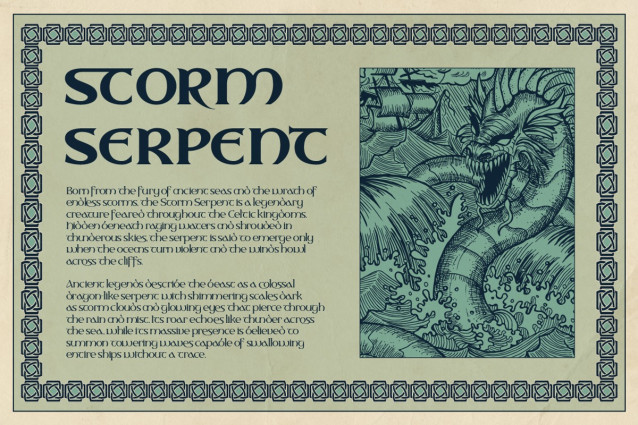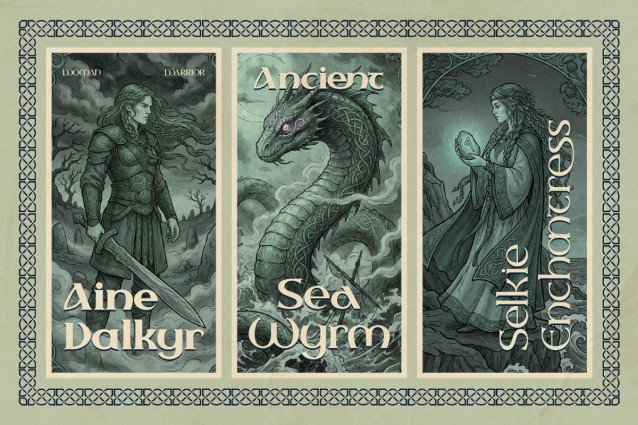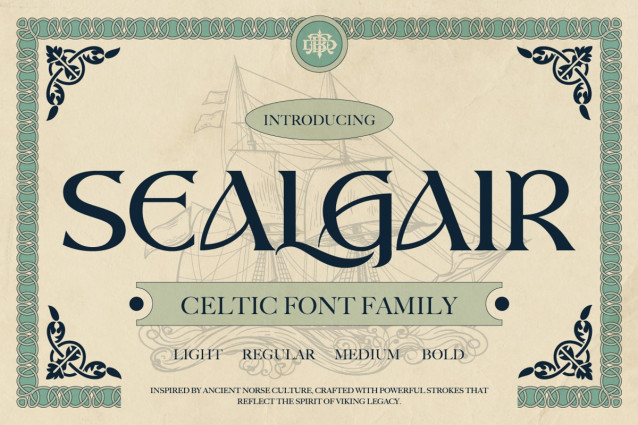
Sealgair Font
Sealgair Font is a powerful and elegant Celtic font family inspired by ancient Norse and Gaelic aesthetics. Crafted with distinctive curves, sharp edges, and ornamental flow, this typeface captures the spirit of mythology, warriors, and timeless legends.Designed to bring a bold historical character into modern design, Sealgair blends traditional Celtic style with clean readability, making it perfect for both display and creative branding needs.